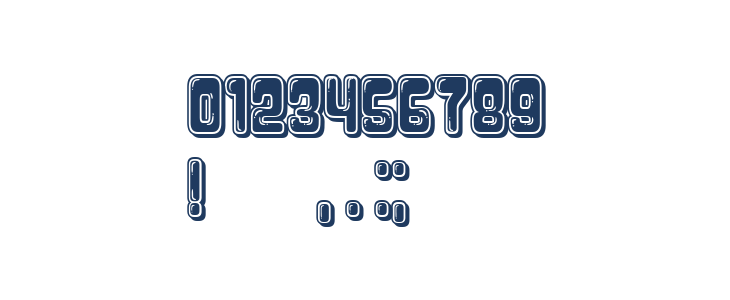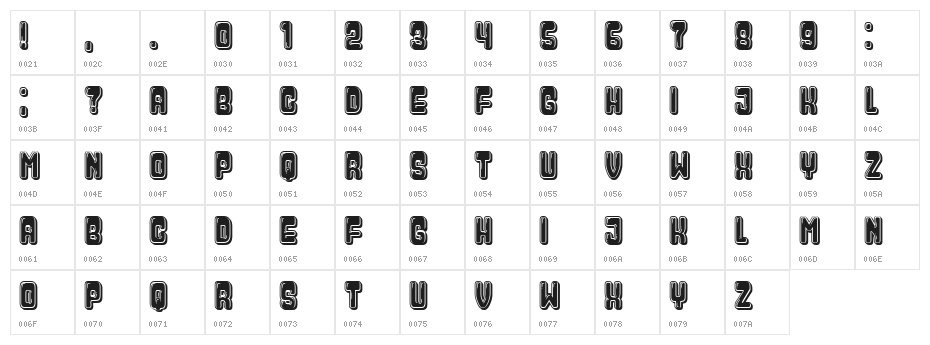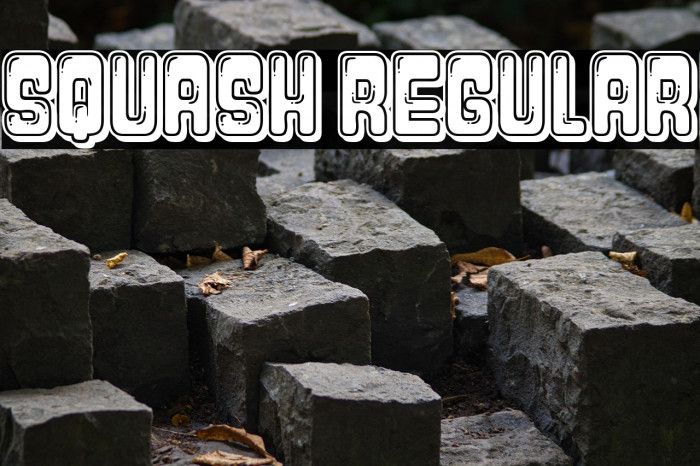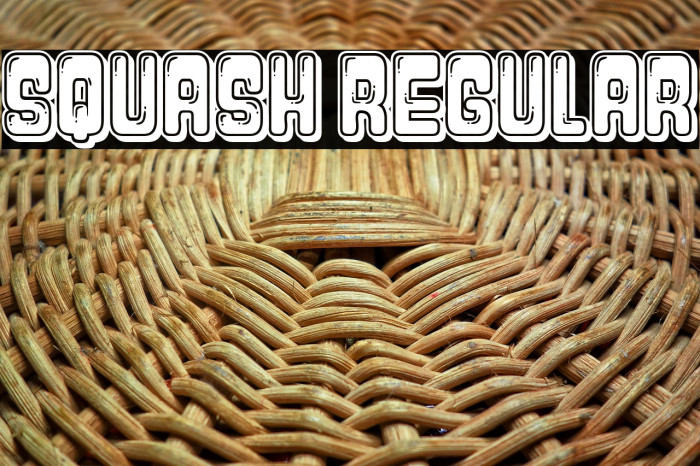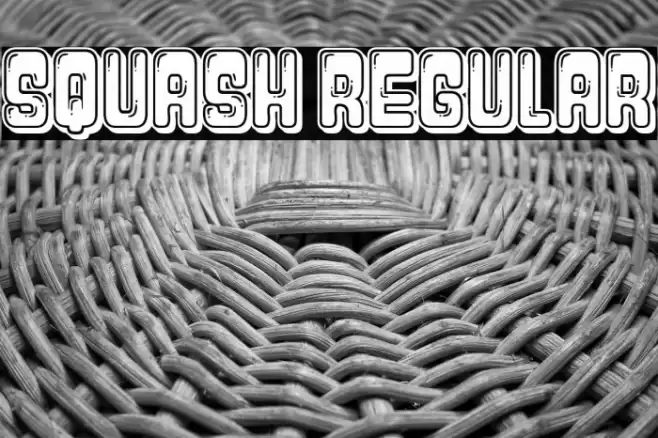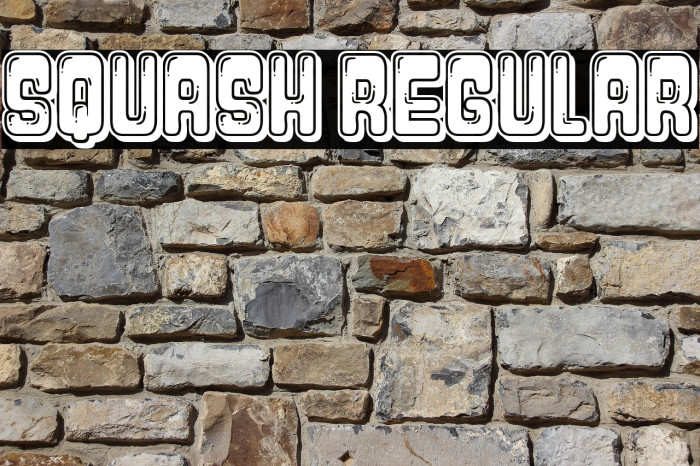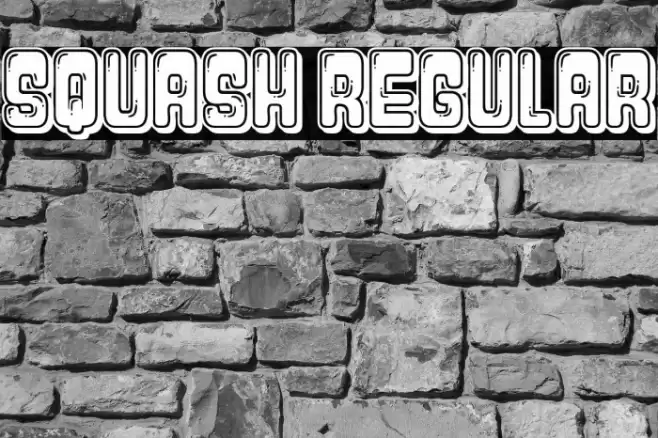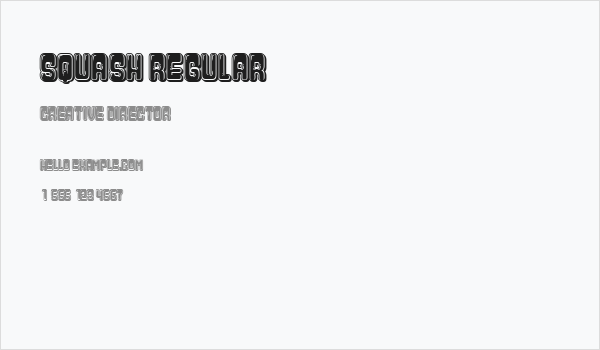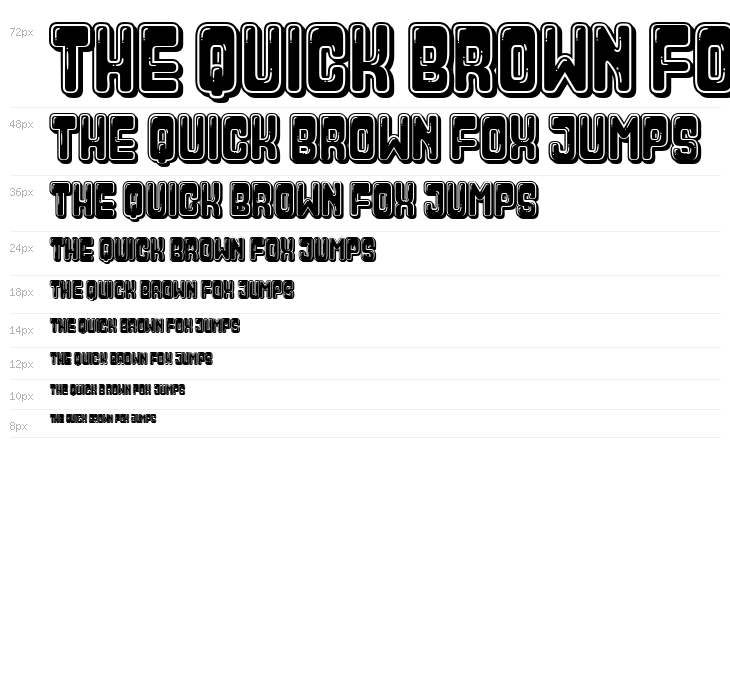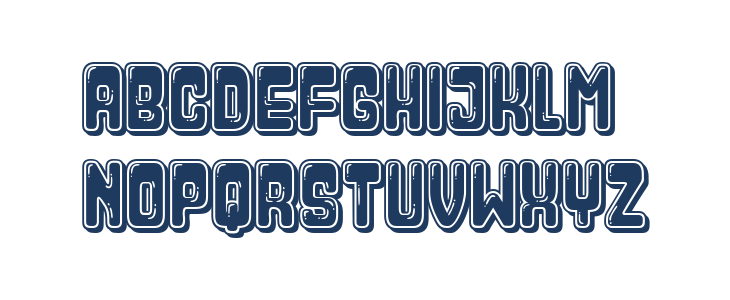
Squash Regular Font
Squash Regular Description
This font features a bold, playful design with a distinct outline that gives it a three-dimensional appearance. The characters are rounded and have a uniform thickness, creating a cohesive and visually striking look. The uppercase and lowercase letters maintain a consistent style, with the lowercase letters slightly smaller but equally bold. The numbers and special characters are designed to match the overall aesthetic, ensuring a harmonious appearance across all elements. This font's unique style makes it stand out, making it ideal for creative and eye-catching designs.
| Overall Style | Playful, Modern |
| Proposed Projects | Ideal for posters, logos, children's books, and playful branding projects. |